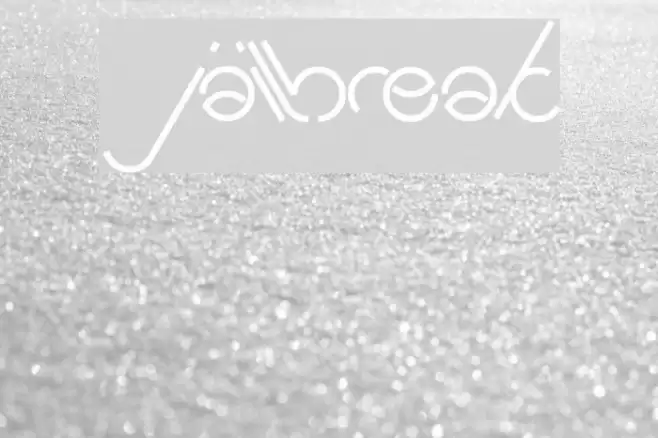
jailbreak Font
jailbreak Description
This font features a unique and modern design with a distinct geometric style. The characters are interconnected with smooth, flowing lines that create a sense of continuity and movement. The overall appearance is sleek and futuristic, with a playful twist. The letters are crafted with a consistent stroke width, giving the font a uniform look. The design incorporates a mix of sharp angles and curves, adding an element of dynamism. The font's aesthetic is both artistic and functional, making it suitable for creative projects that require a contemporary and eye-catching typeface.
A modern, geometric font with interconnected, flowing lines and a sleek, futuristic style from Uncategorized fonts.